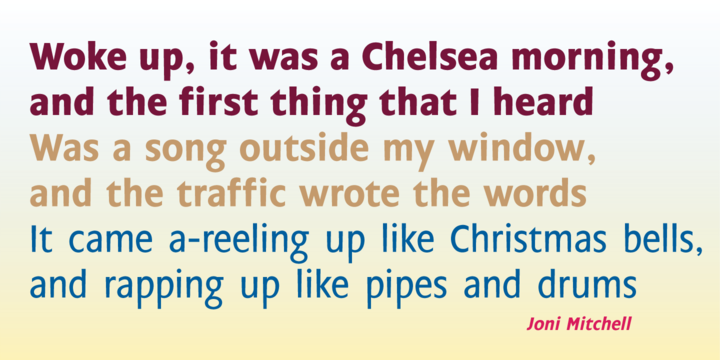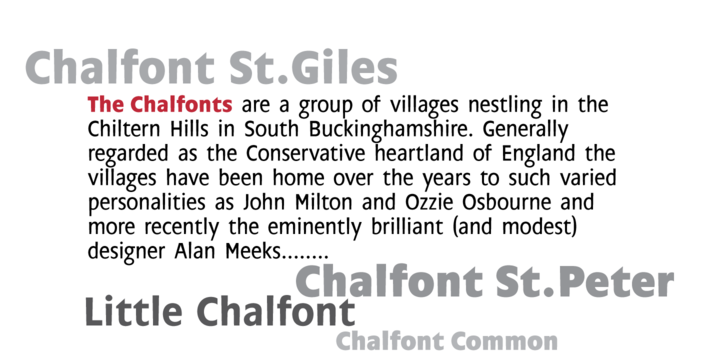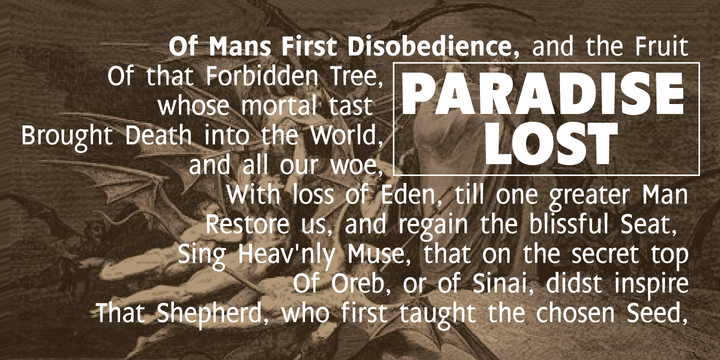
Chalfont Family Font
About the Chalfont Family Font
Presenting Chalfont Family Font, a unique and stylish typeface that will make your work stand out. The typeface was designed after seeing a photocopy of some News Gothic text where the ink had faded on the bottom of each character. As character recognition is generally based on the top half of a character, readability was never compromised. Rather like Antique Olive the characters have a top heavy look when viewed straight on, however, as most type is read at an angle with the top further away than the bottom this top heavy look is diminished.